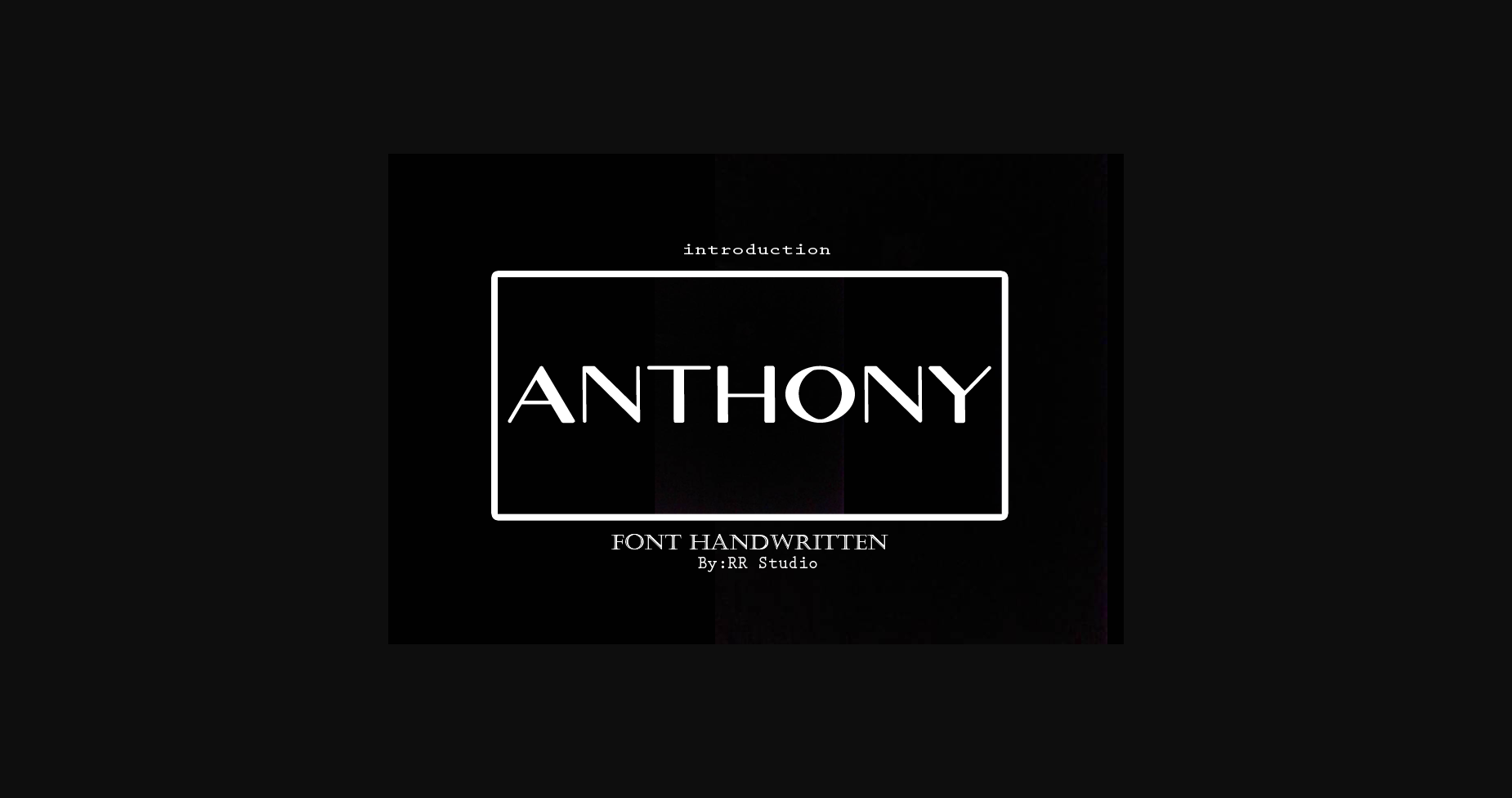
About Anthony Font
Anthony is a sweet and cursive handwritten font. This gentle font will look gorgeous on a variety of design ideas. It will add a joyful and romantic touch to each of your projects!
Anthony is a stylish and incredibly elegant handwritten font. It looks stunning on wedding invitations, thank you cards, quotes, greeting cards, logos, business cards and every other design which needs a handwritten touch.